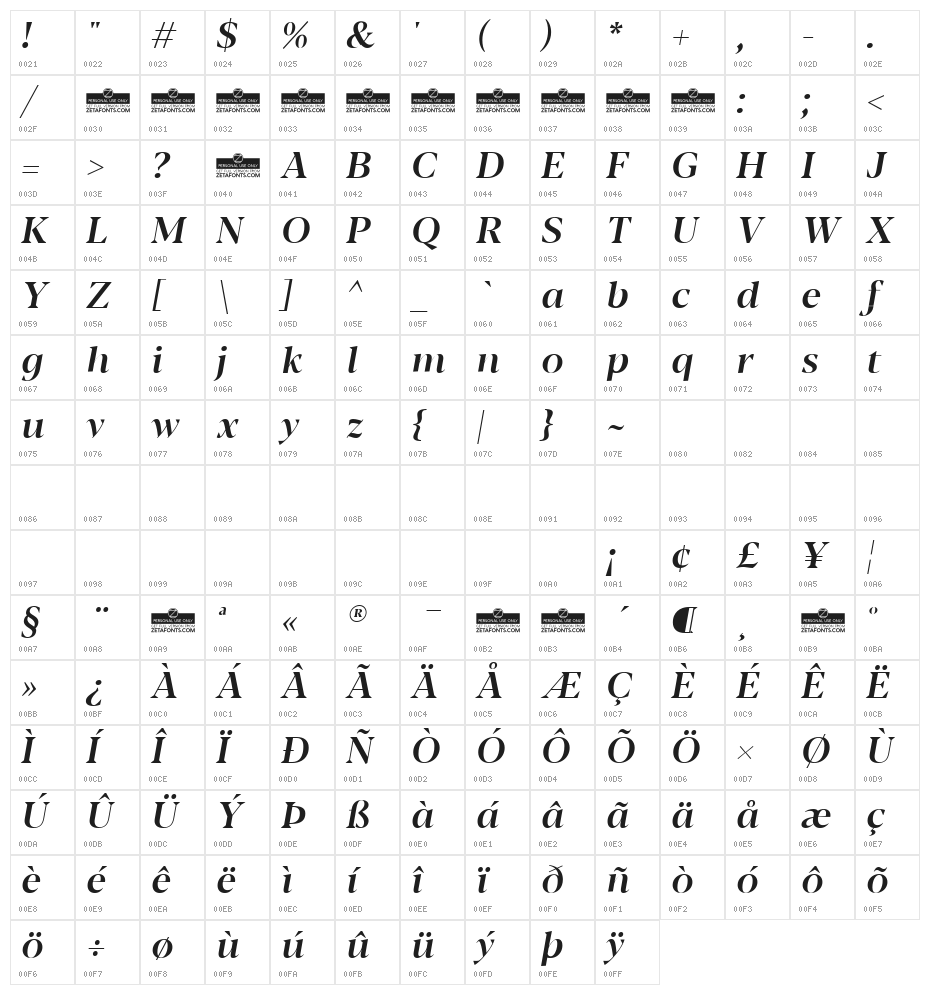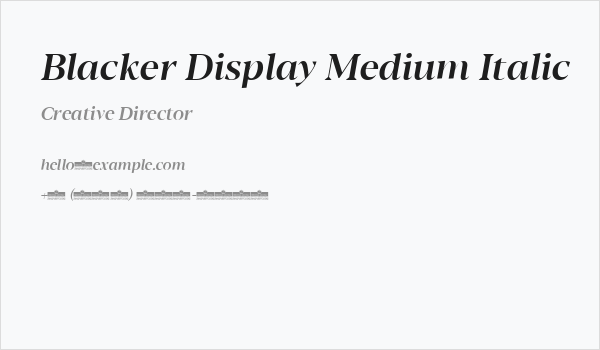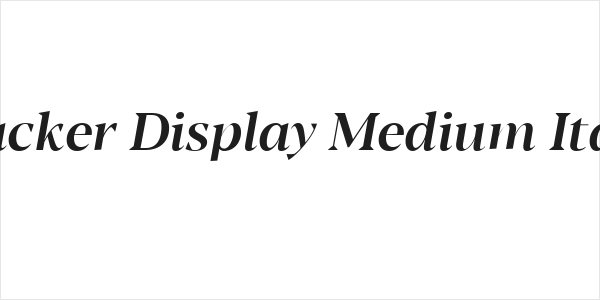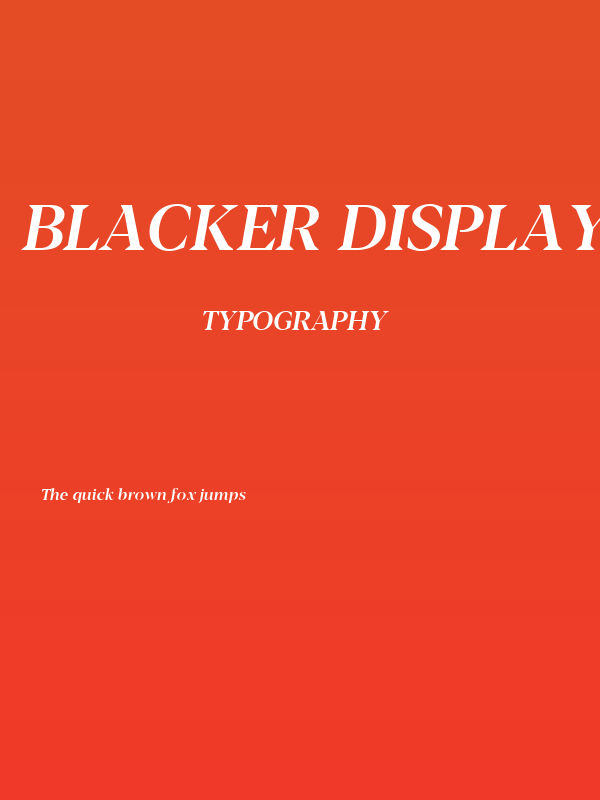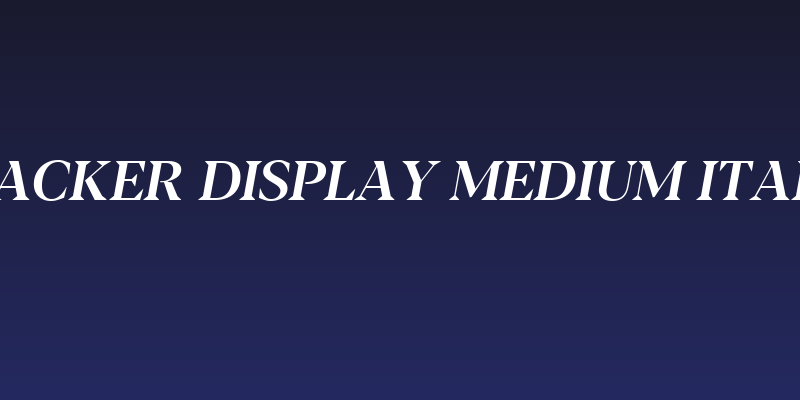
Blacker Display Medium Italic Font
Blacker Display Medium Italic Description
This font exudes a sophisticated and elegant style with its italicized form and medium weight. The strokes are sharp and clean, providing a modern yet timeless appeal. The uppercase letters have a commanding presence, while the lowercase letters maintain a graceful flow. The numerals are distinct and well-proportioned, ensuring readability. Special characters are crafted with precision, adding to the font's versatility. The overall design is suitable for high-end branding and editorial use, where a touch of class and refinement is desired.
Use CaseHeadlines, Logos, Editorial Design
Proposed ProjectsIdeal for luxury branding, editorial design, fashion magazines, and elegant invitations.